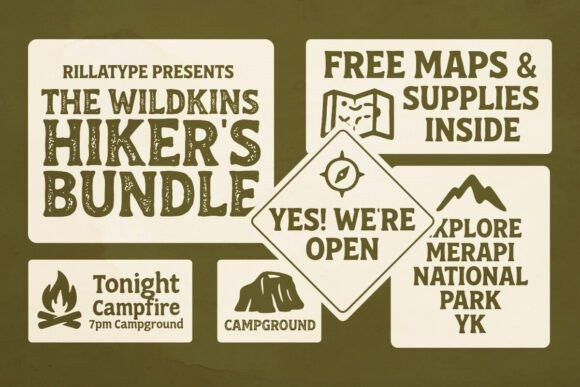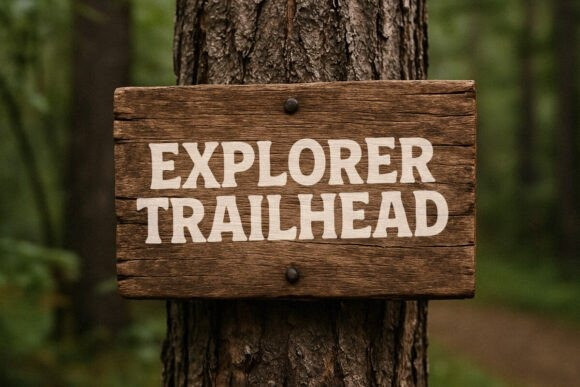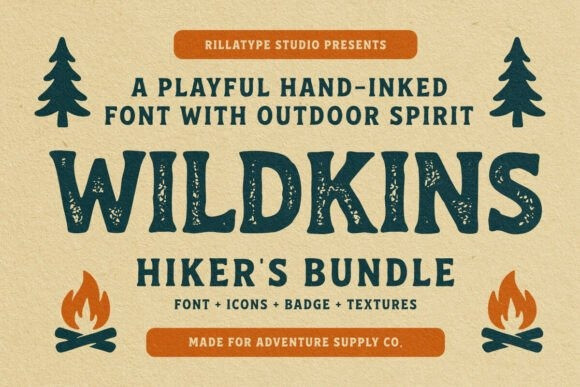
RT Wildkins Stamp Font
RT Wildkins Stamp Font is a playful, hand-inked font collection with a fun and adventurous outdoor vibe. Perfect for branding, packaging, signage, apparel, labels, and all your nature-inspired creative projects.